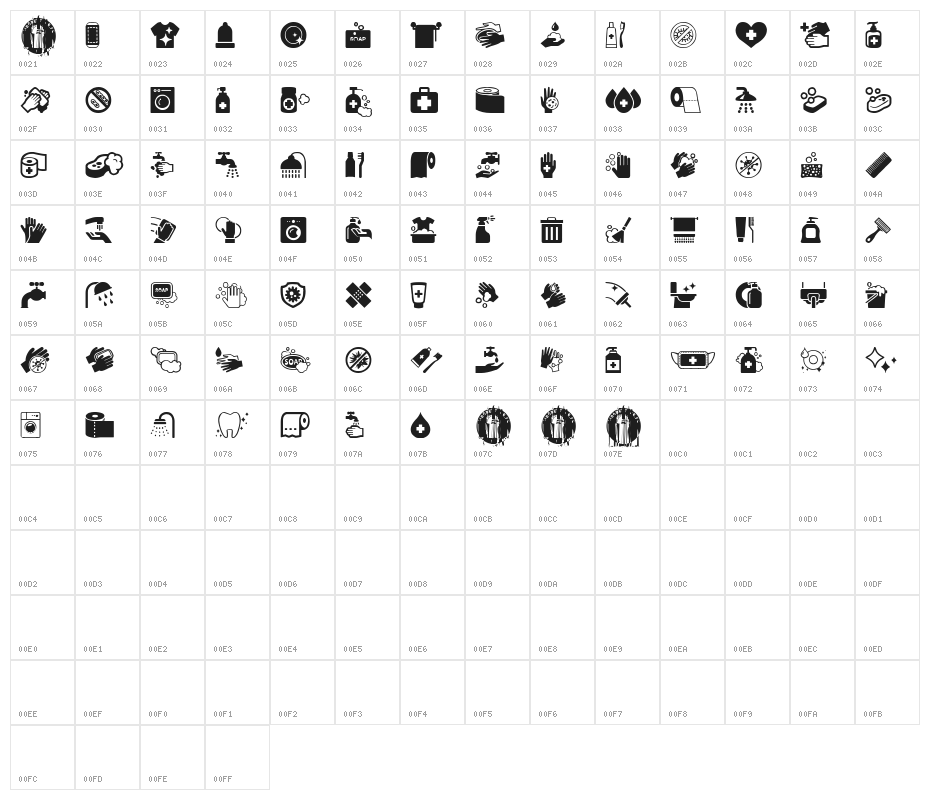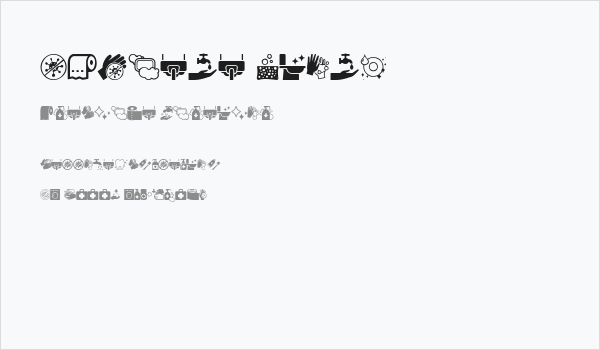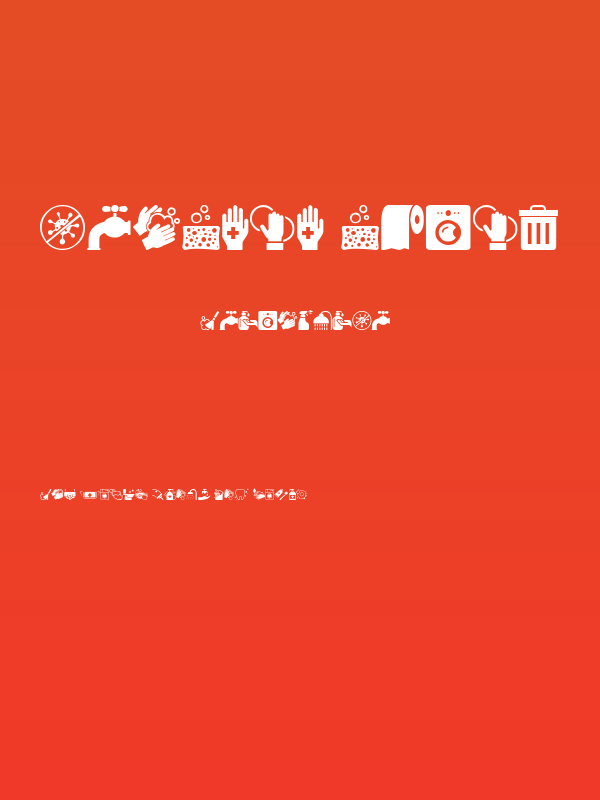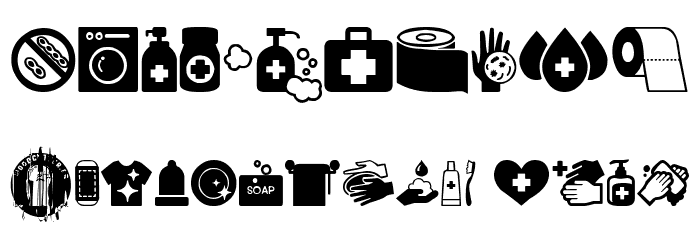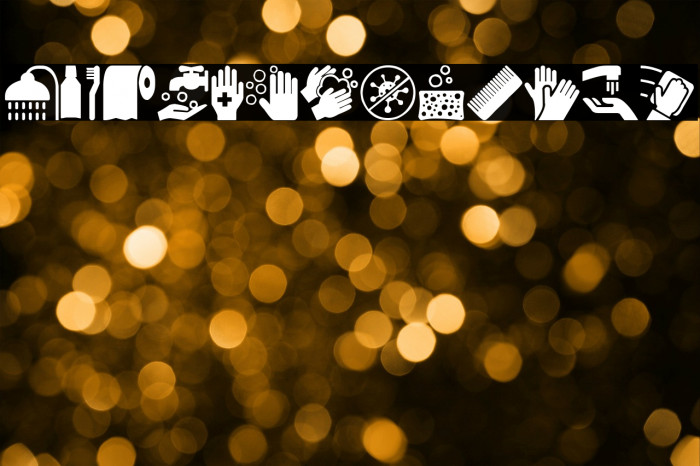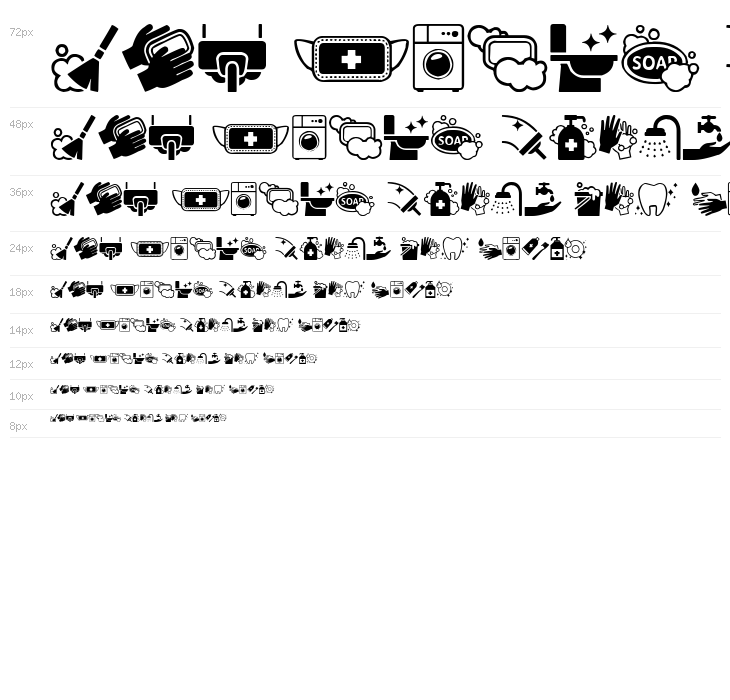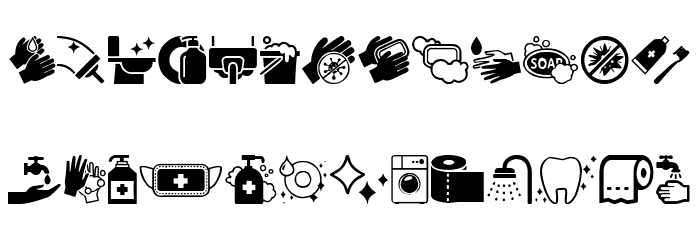
Hygiene Icons Font
Hygiene Icons Description
A collection of bold, high-contrast pictogram icons representing various hygiene and cleanliness concepts, including hand washing, soap, cleaning supplies, showers, towels, medical kits, and related items. The icons are solid, simple, and easily recognizable, designed for clear communication.
| Overall Style | Modern, Functional, Pictographic |
| Use Case | Icons, Signage, Instructional graphics, UI elements |
| Proposed Projects | Infographics, public health posters, instructional signage, educational materials, app UI, packaging. |